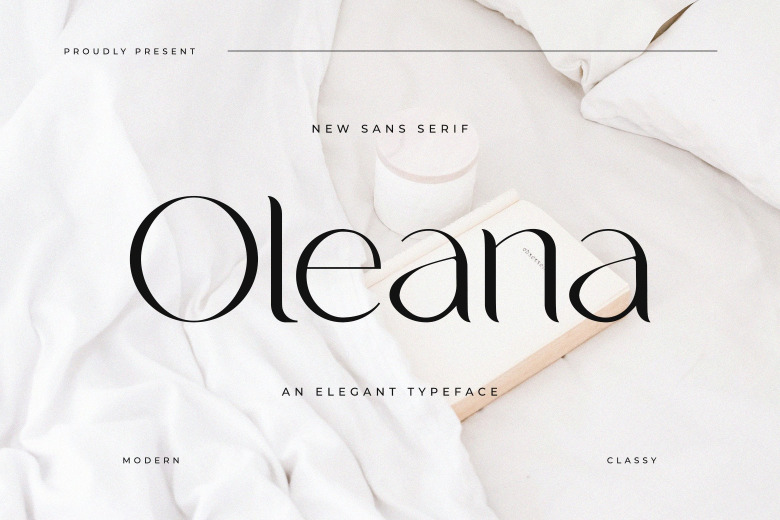
Oleana Font
Oleana is an elegant and modern sans-serif accessible font. No matter the topic, this font will be an incredibly asset to your fonts library, as creation has the potential to be of high use.
Oleana Sans Serif Font